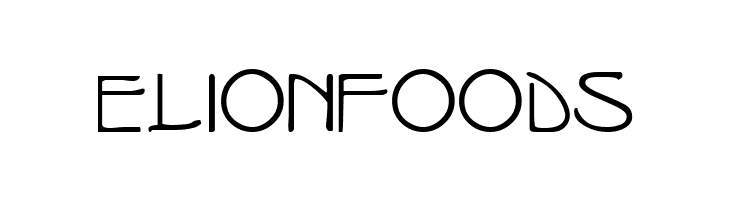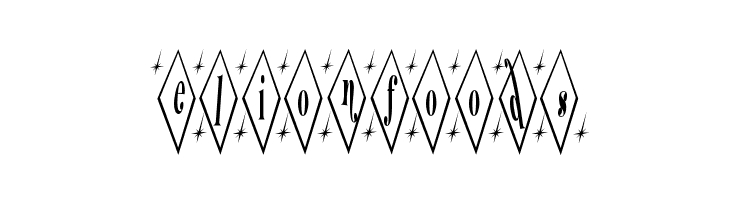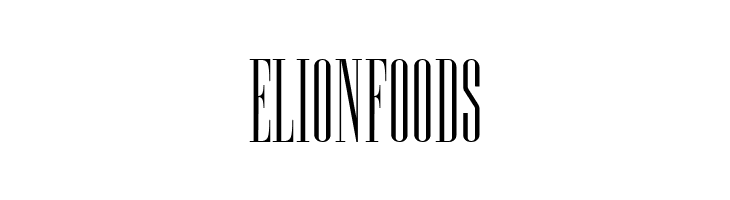
( Fonts by Sam Wang )
An artistic and modern font with elegant curves and angular cuts.
A tall, narrow font with high contrast, ideal for elegant and sophisticated designs.
( Fonts by Emerald City Fontwerks )
An elegant and decorative font with diamond embellishments and unique numeral styling.